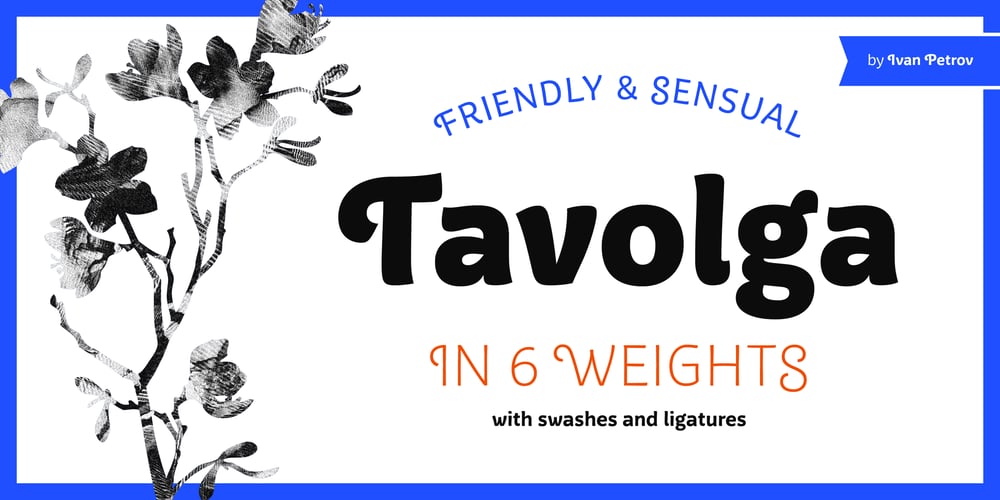
Tavolga Font Family was designed by Ivan Petrov and published by Ivan Petrov. Tavolga contains 6 styles and family package options. Tavolga have the mood of brushed feeling and come across as friendly and gentle. The harmony of organic and smooth shapes makes Tavolga uniquely appealing for display and titling where special expression is required. It has 6 weights, ranging from Thin to Black is ideally suited for advertising and packaging, festive occasions, editorial and publishing, logo, branding and creative industries, poster and billboards as well as web and screen design. Tavolga includes alternates for every uppercase letter, plus a handful of ligatures.